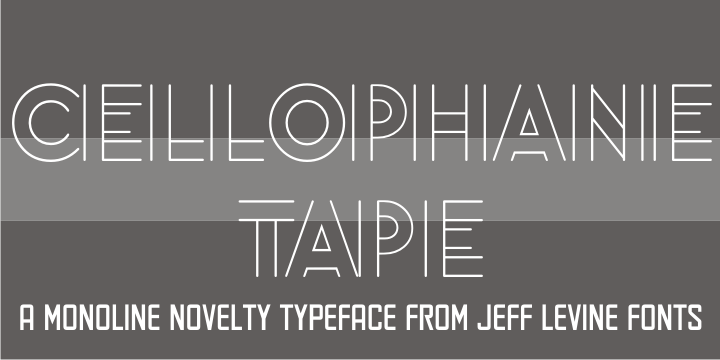
Cellophane Tape
Cellophane Tape JNL is a stripped-down and slightly modified version of Eckhardt Trilinear JNL with open-ended letters. While the name Cellophane Tape JNL is nostalgic (tape is no longer made from cellophane), it's still a fun novelty fonts for many applications.